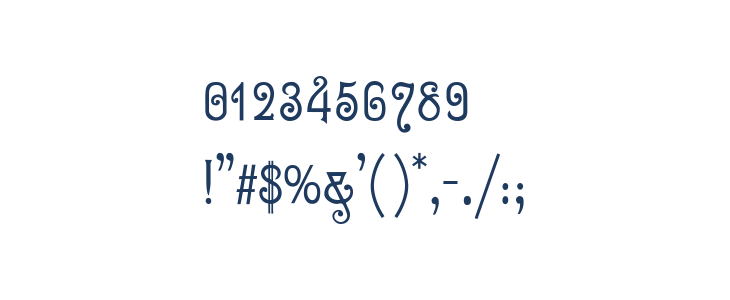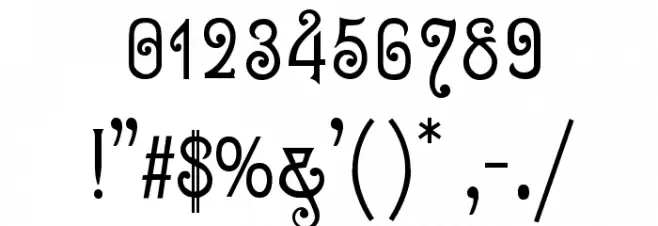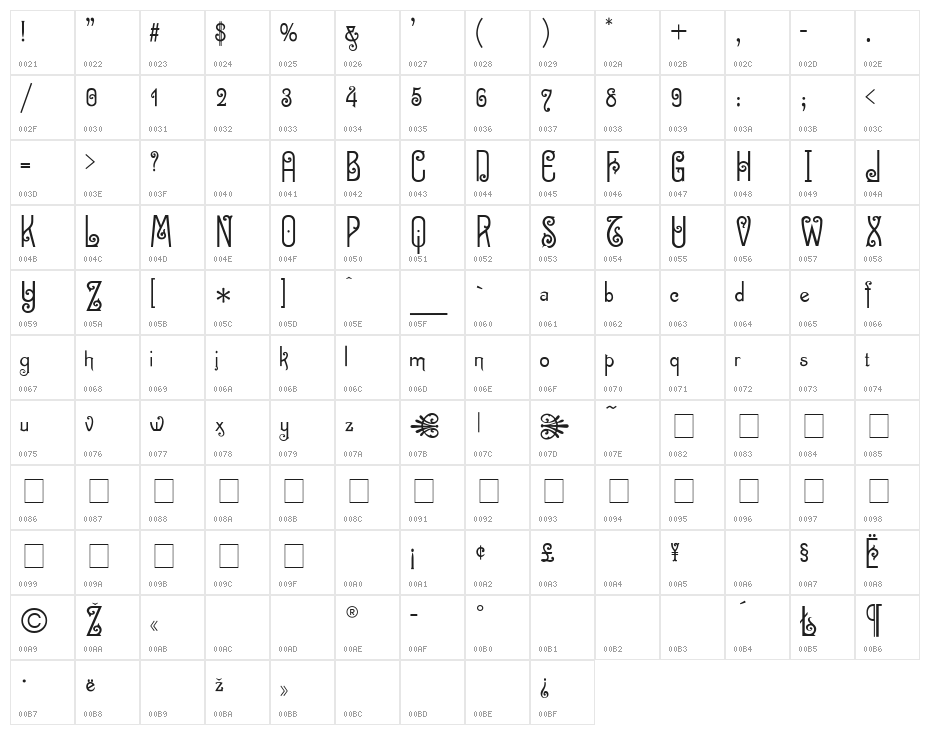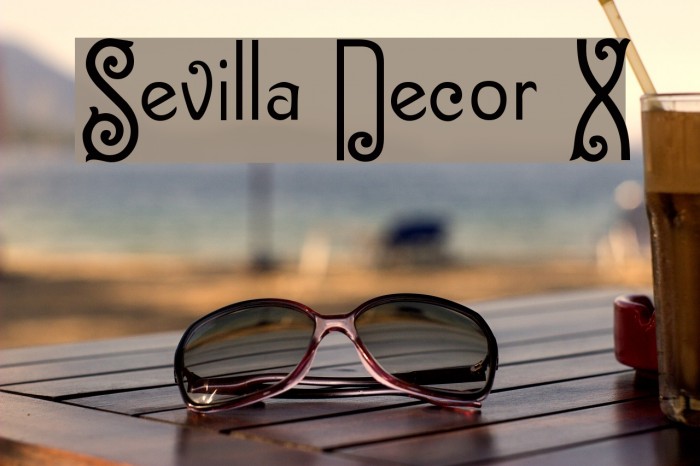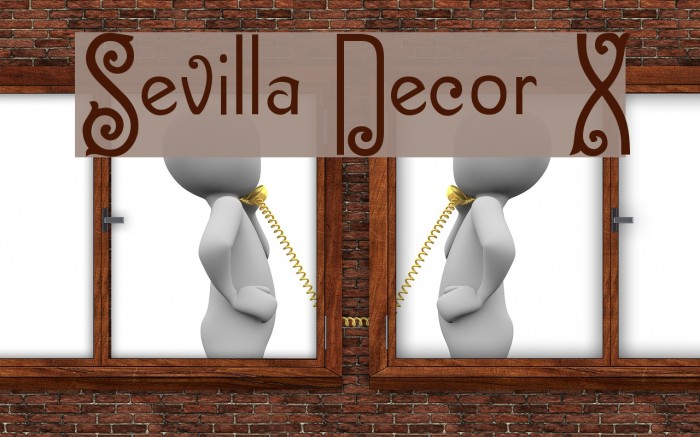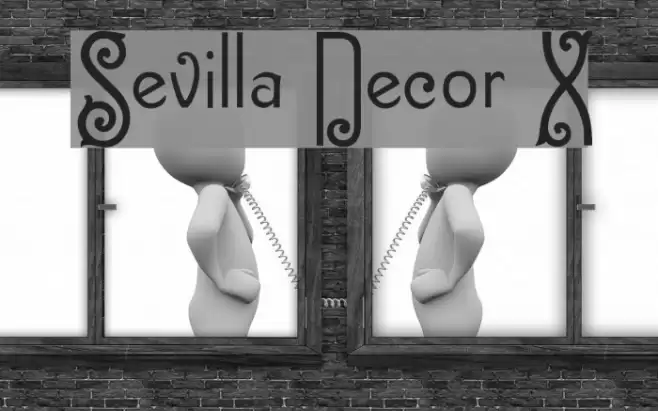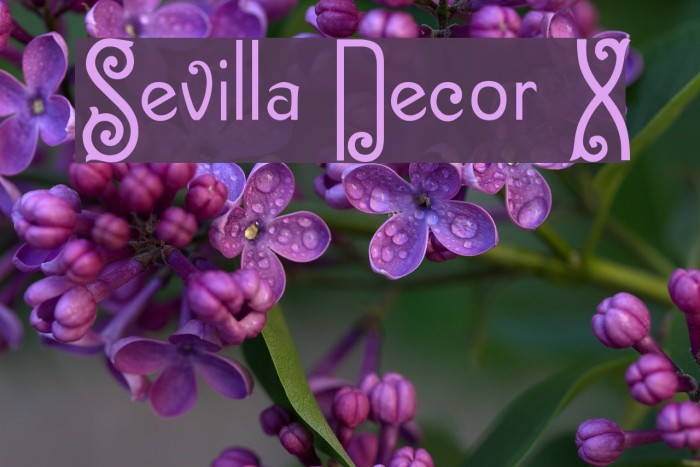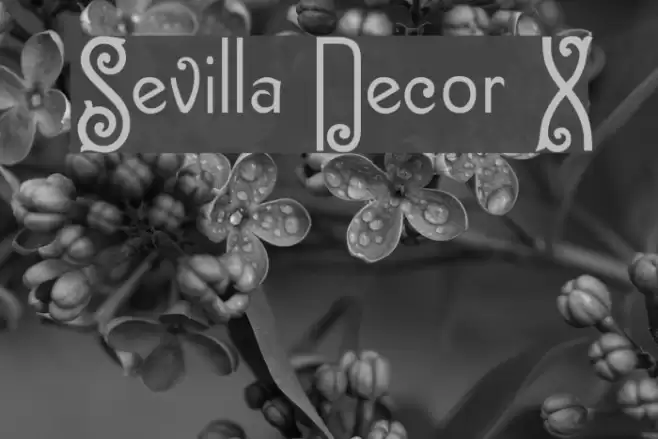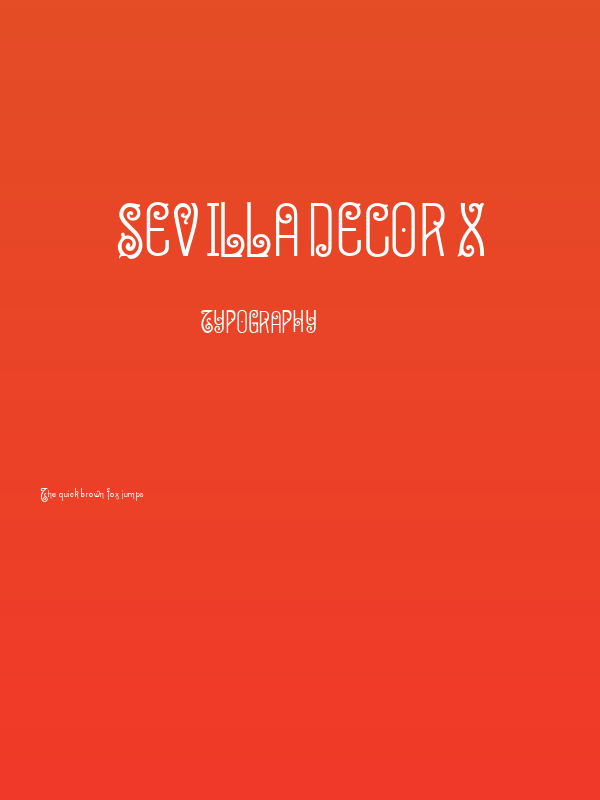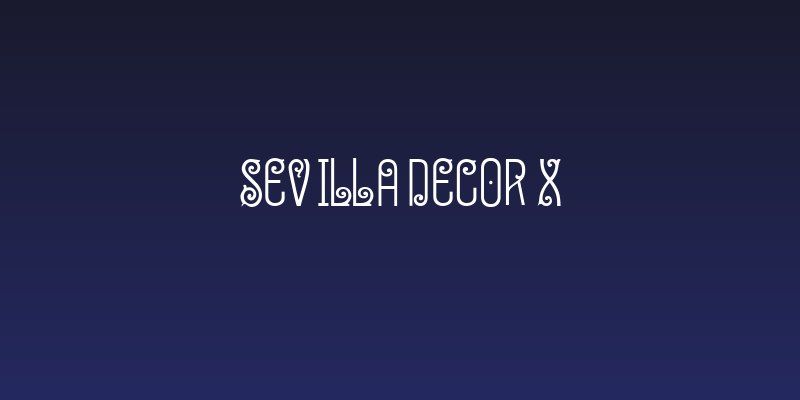
Sevilla Decor X Font
Sevilla Decor X Description
This font features a unique and decorative style with intricate swirls and embellishments that give it a whimsical and artistic flair. The uppercase letters are particularly ornate, with each character incorporating playful curls and loops that add a sense of movement and creativity. The lowercase letters maintain a more subdued yet still artistic appearance, complementing the uppercase with a slightly more restrained design. Numbers and special characters follow the same decorative theme, ensuring a cohesive look across all glyphs. This font's distinct style makes it ideal for projects that require a touch of elegance and creativity.
| Proposed Projects | Ideal for wedding invitations, artistic posters, branding for creative businesses, and decorative book covers. |